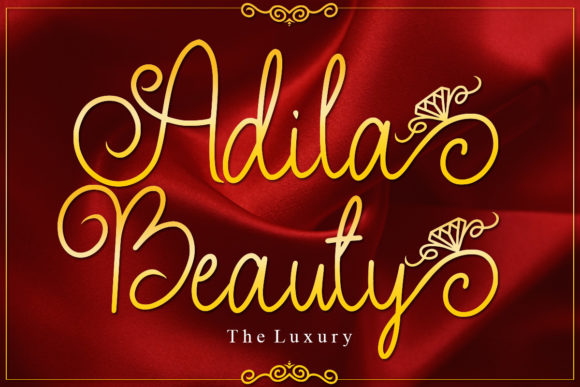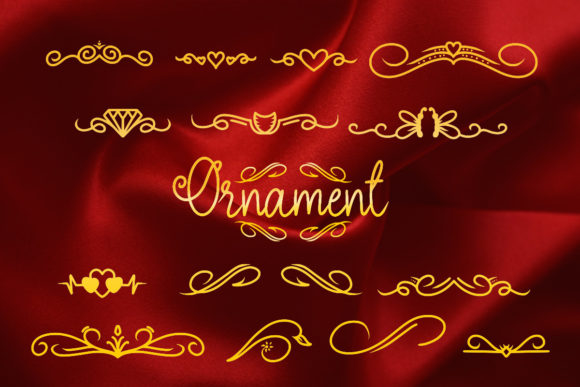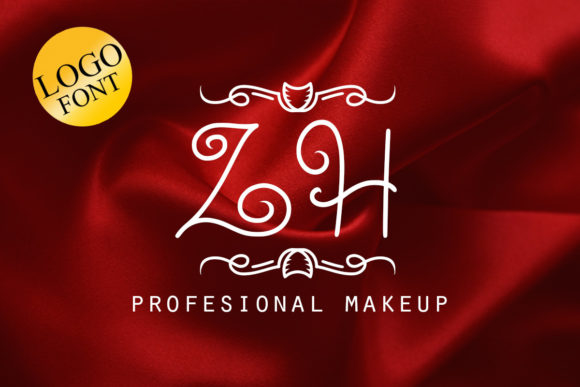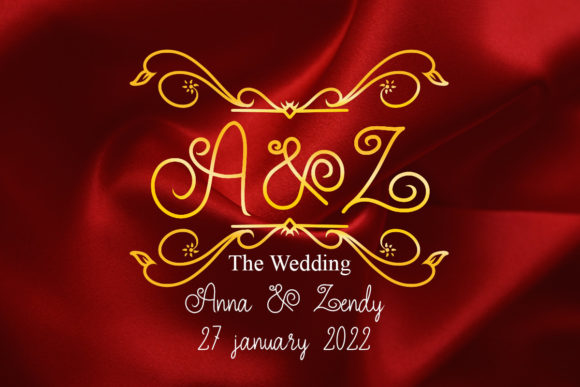
Adila Beauty Font
I wanted to create a font, that is just bloody elegant. So I made Adila Beauty, a sort of classic decorative copperplate script with a modern twist. It is a display font meant for vintage logos, fashion labels, custom cards headers, badges, food packaging designs, especially wedding fonts.This font is PUA encoded which means you can access all of the glyphs and swashes with ease!